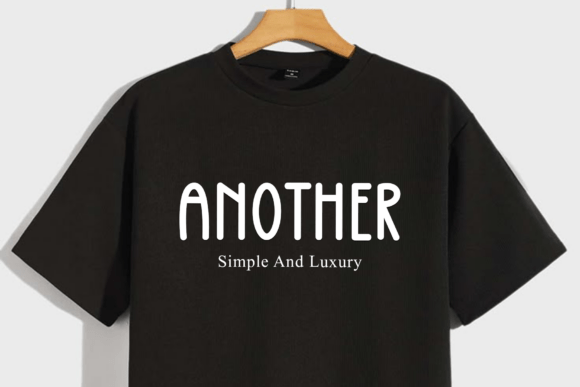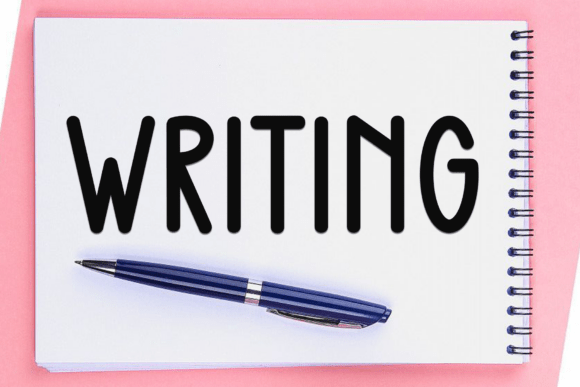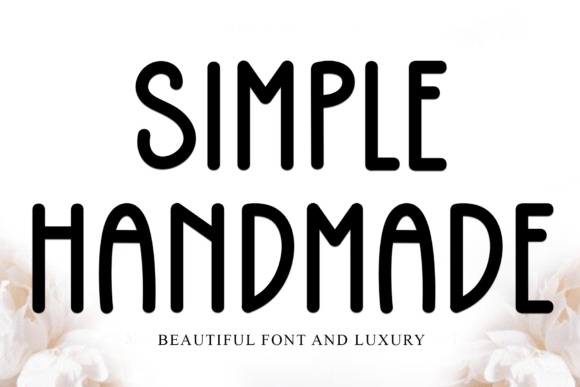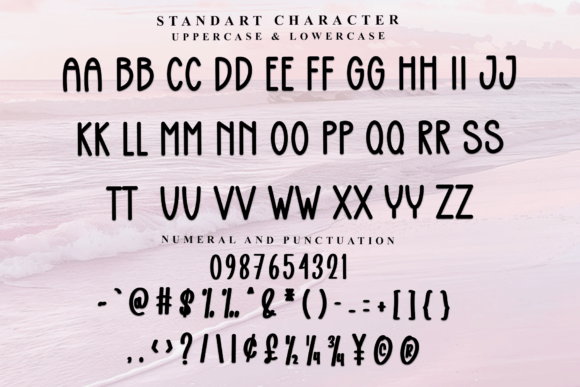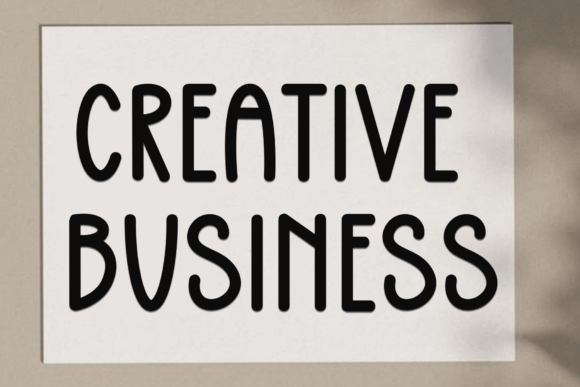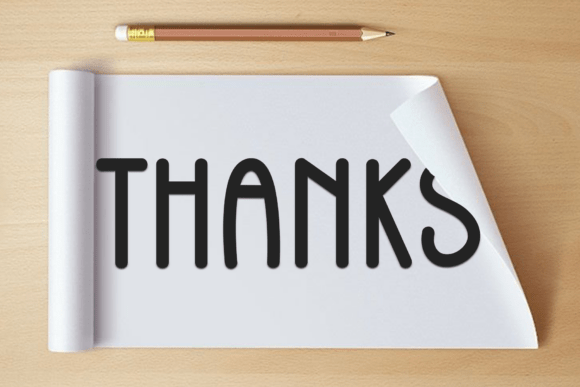
Introducing Healing Holiday Font: A Unique and Versatile Typeface for Creative Projects
In the world of design, a font can make all the difference in creating a lasting impression. For designers, crafters, and creative enthusiasts, finding the right font can be a daunting task. However, if you’re looking for a beautiful and eye-catching font that can elevate your designs, look no further than Healing Holiday Font. This stunning typeface is designed with a soft, unique touch that sets it apart from other fonts, making it perfect for a wide range of creative projects.
A Distinctive and Meaningful Font
Healing Holiday Font boasts distinctive strokes that give it a special character, making it a meaningful and versatile font for future use. Its unique design ensures that your designs stand out from the crowd, capturing the attention of your audience. Whether you’re working on a design project, craft, or other creative work, this font is sure to make a lasting impression.
Healing Holiday Font is perfect for designers and crafters who want to add a personal touch to their work. With a wide range of characters, this font is ideal for various design projects, including:
• Logo design
• Brochures and flyers
• Social media graphics
• Crafting projects, such as handmade cards and gift tags
• Web design
Its versatility and unique design make it an excellent choice for any creative project that requires a personal touch.
A Natural Font Style for a Wide Range of Products
Healing Holiday Font features a natural font style that is perfect for a wide range of products, including:
• Stationery and greeting cards
• Packaging and labeling
• Merchandise, such as t-shirts and mugs
• Digital products, such as e-books and courses
Its unique design and versatility make it an excellent choice for any product that requires a personal touch.
Why Choose Healing Holiday Font?
There are many reasons why Healing Holiday Font stands out from other fonts. Here are a few:
• Unique design: Its distinctive strokes and soft touch make it a one-of-a-kind font.
• Versatility: It’s perfect for various design projects, crafts, and creative works.